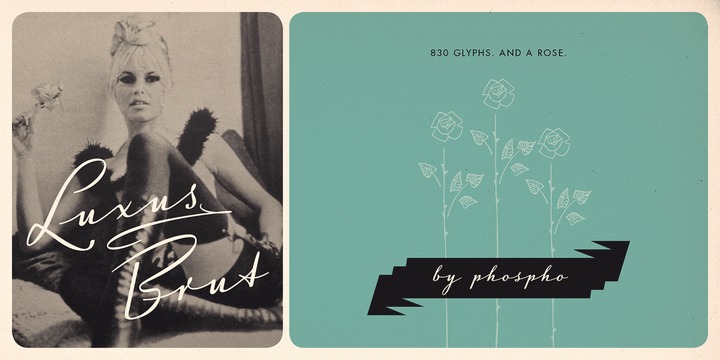
Luxus Brut™
Luxus Brut
Luxus Brut breathes the spirit of hand lettered signage of the Fifties. It’s a formal script, inspired from a well concealed shop portal in Vienna/Austria. Large and distinctive capital letters (that won't share the baseline with lowercase letters), wide spacing as well as a low x-height make it an excellent choice for posters, magazine headlines, logotypes, branding and any design that requires a touch of luxury and sensuality.
This Open Type font comes equipped with endings, underlining swashes and a powerful contextual alternate feature. When used with OpenType-savvy applications (such as InDesign CS, Illustrator CS, Photoshop CS or XPress 7) it automatically chooses from three complete sets of capital characters and four sets of lowercase characters, ensuring perfect connections. Luxus Brut covers Western and Eastern European character sets including Baltic, Romanian and Turkish. 830 glyphs in total.